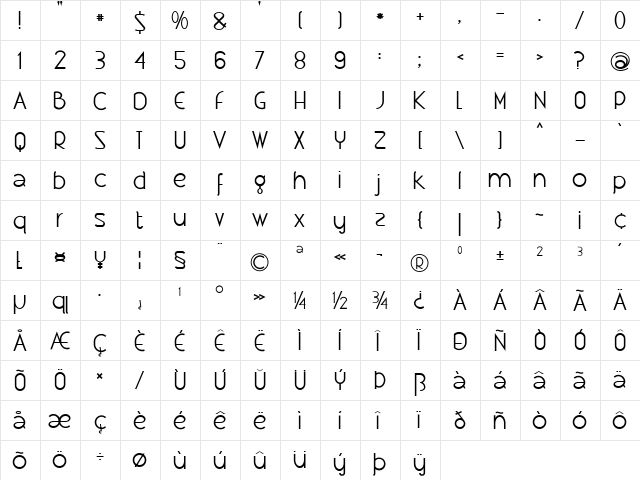
Xtravagant Regular
| Foundry | Alberto Villanueva |
| Designer | Alberto Villanueva |
Design Context for Xtravagant Typeface
Xtravagant takes a measured approach to typography — its balanced proportions and neutral character make it a reliable workhorse for both digital and print work.